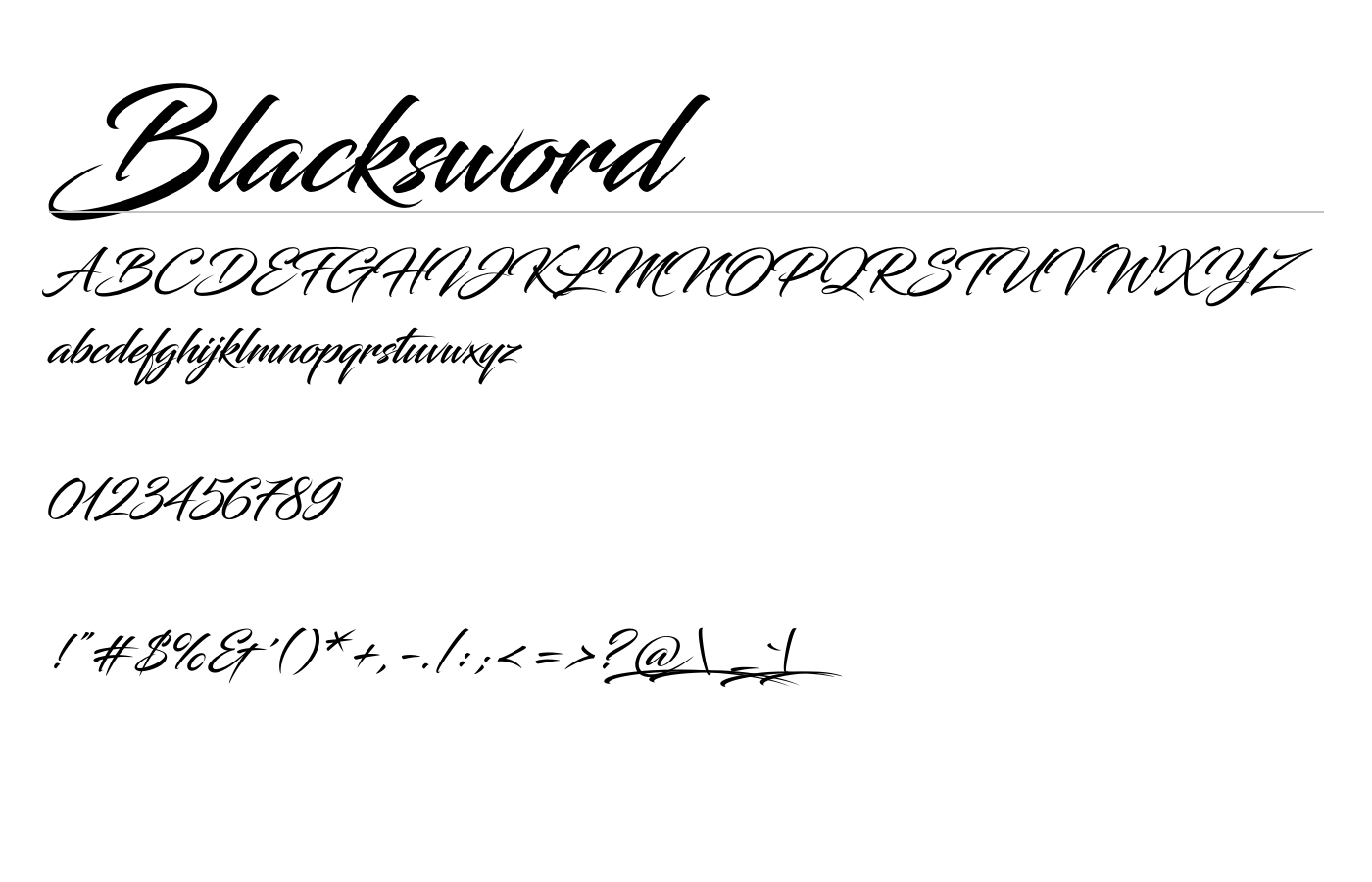
Blacksword is an elegant script font with a bold, flowing style that combines smooth curves and sharp, calligraphic strokes. Its high contrast and dynamic letterforms give it a lively yet sophisticated personality, ideal for luxury branding, invitations, and headlines where a refined, artistic touch is desired. This font works well in creative projects that require a dramatic and stylish flair.
Blacksword Font
About Blacksword Font
| Font family | Blacksword Font |
| Designer | Youssef Habchi |